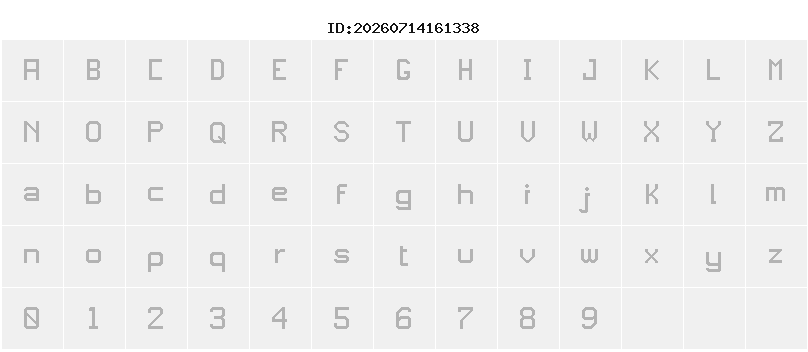
JD Gems Preview
• Font Name: JD Gems
• Full Font Name: JD Gems Regular
• Designer: Jecko Development
• Description: JD Gems TrueType Font
About JD Gems.ttf
JD Gems.ttf is a modern, elegant sans-serif font designed for ultimate readability and visual harmony. Perfect for branding, headlines, web design, and print materials.